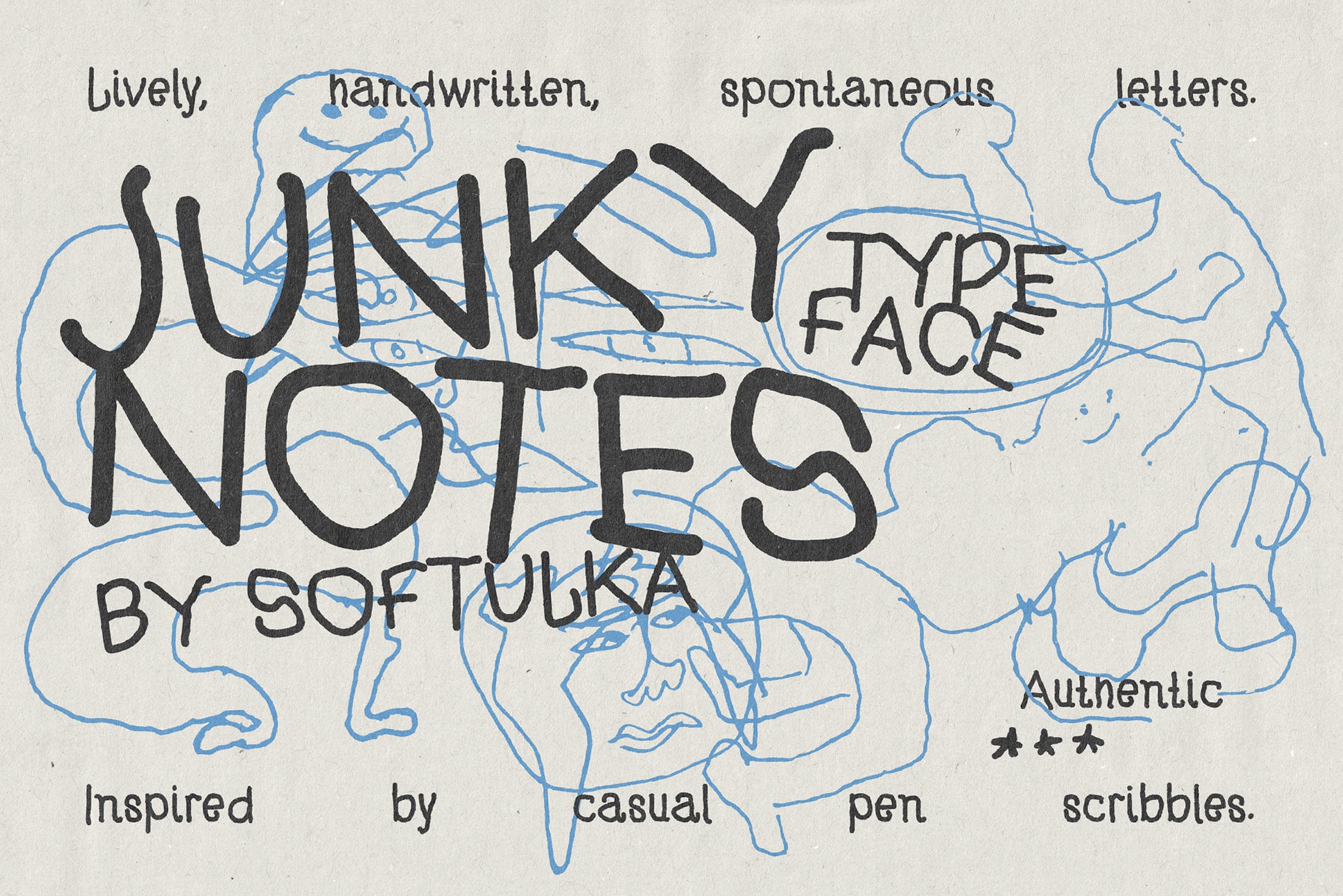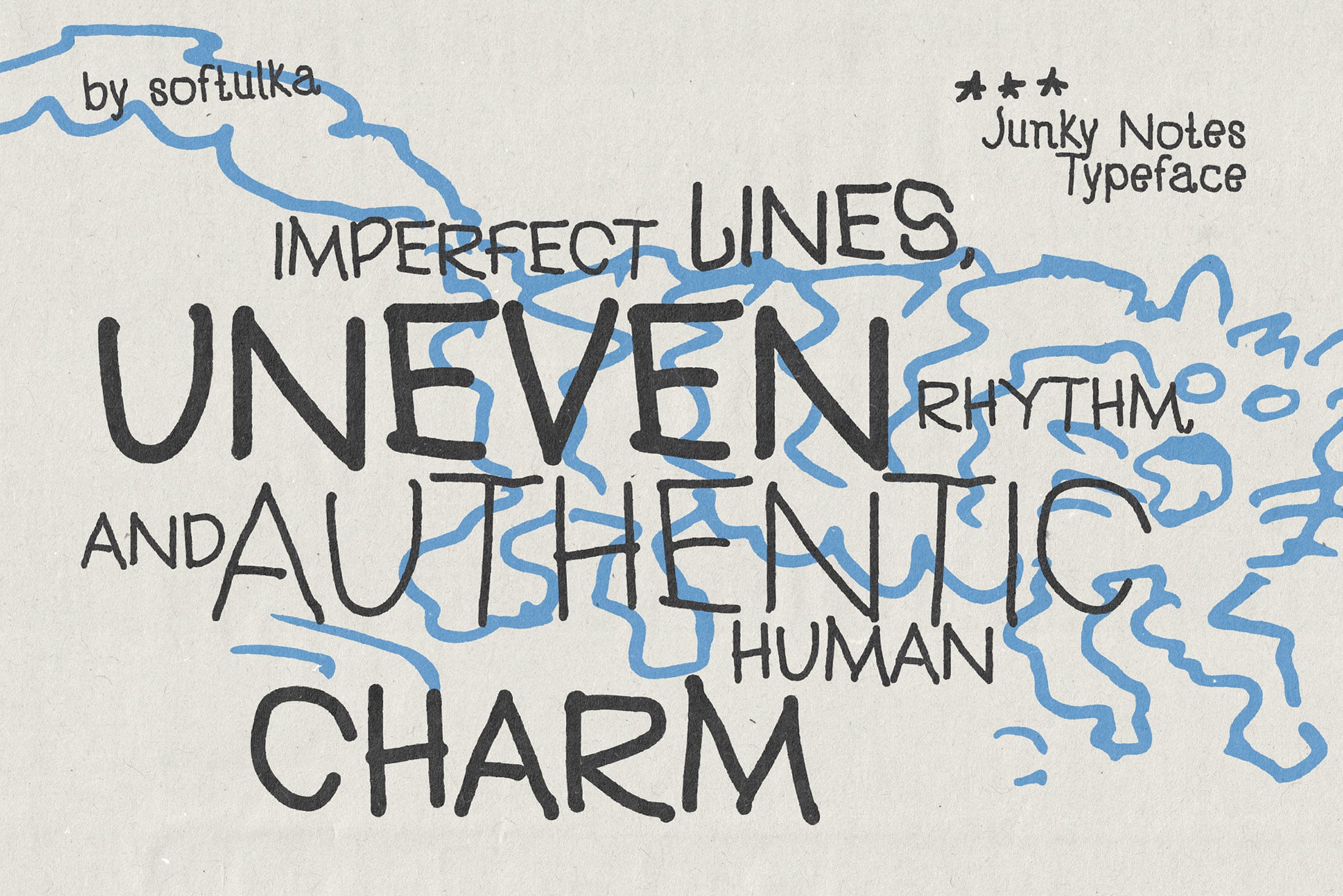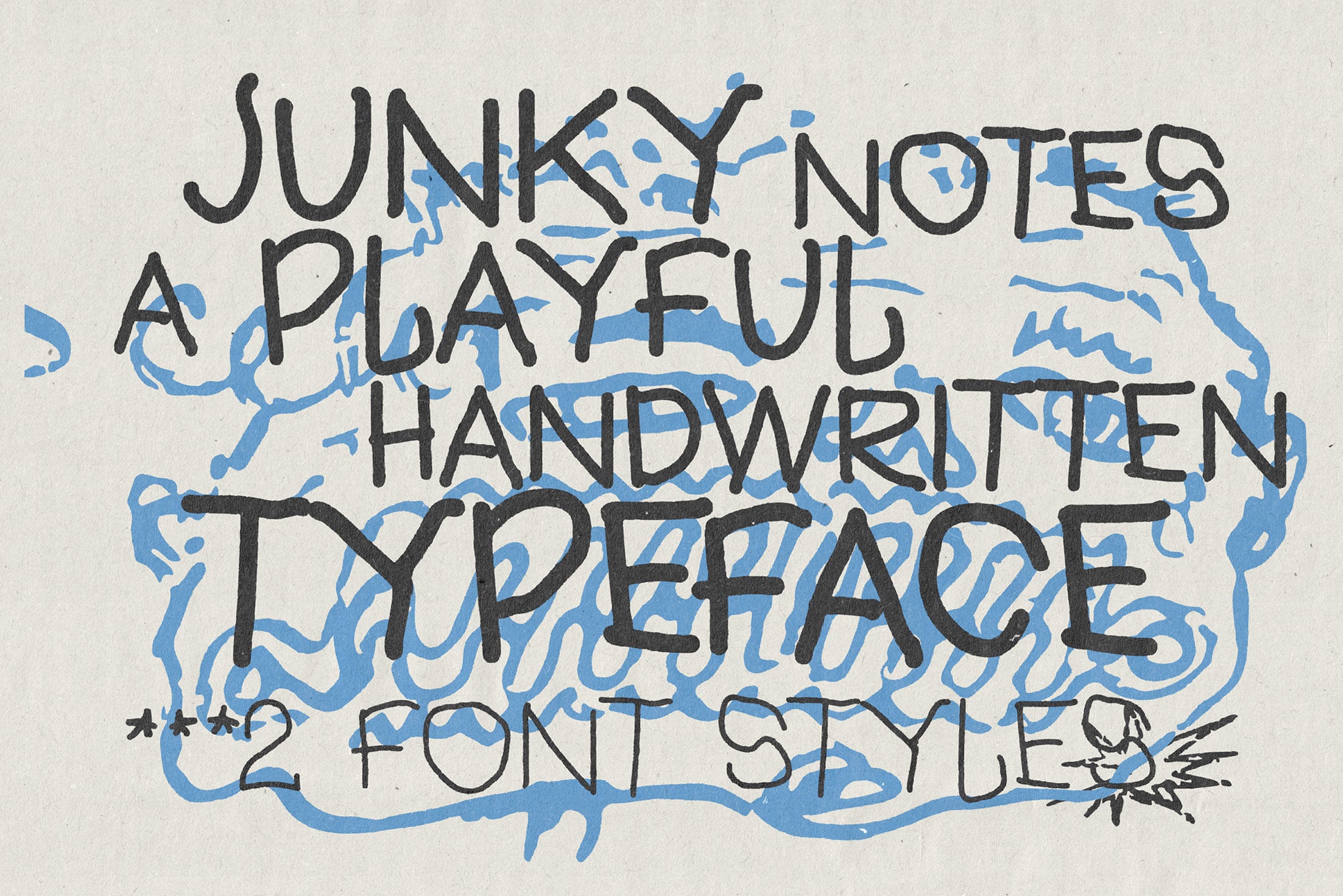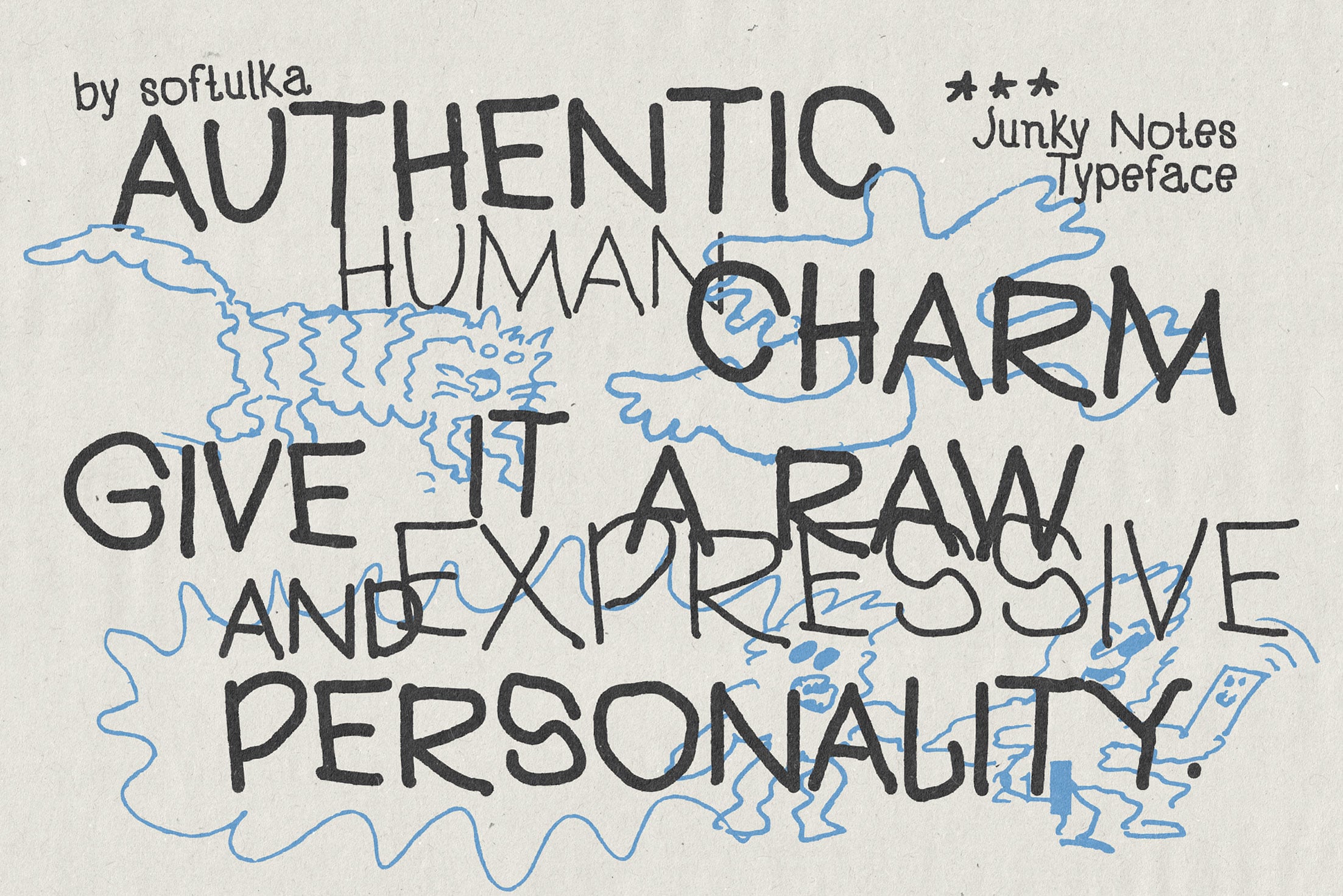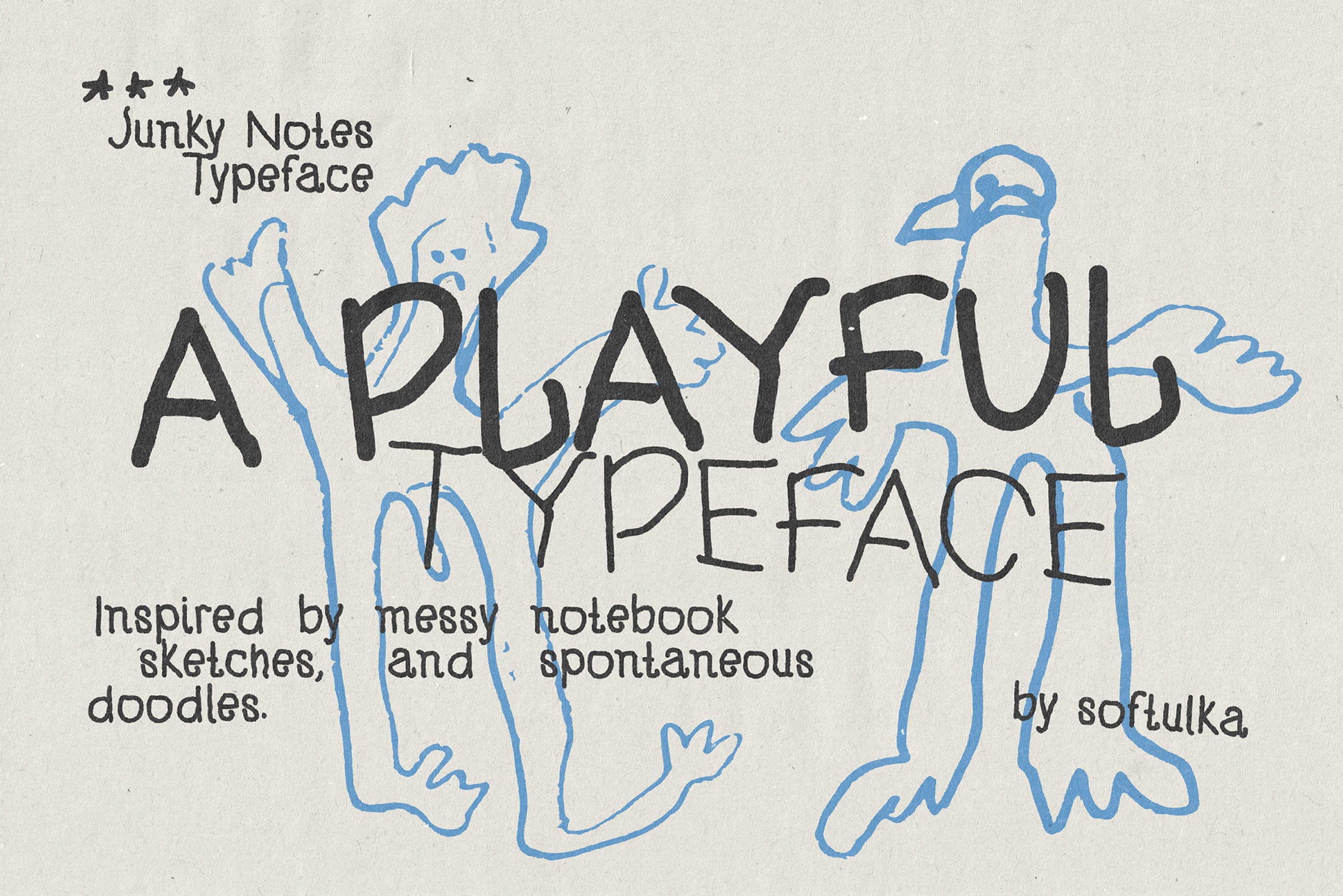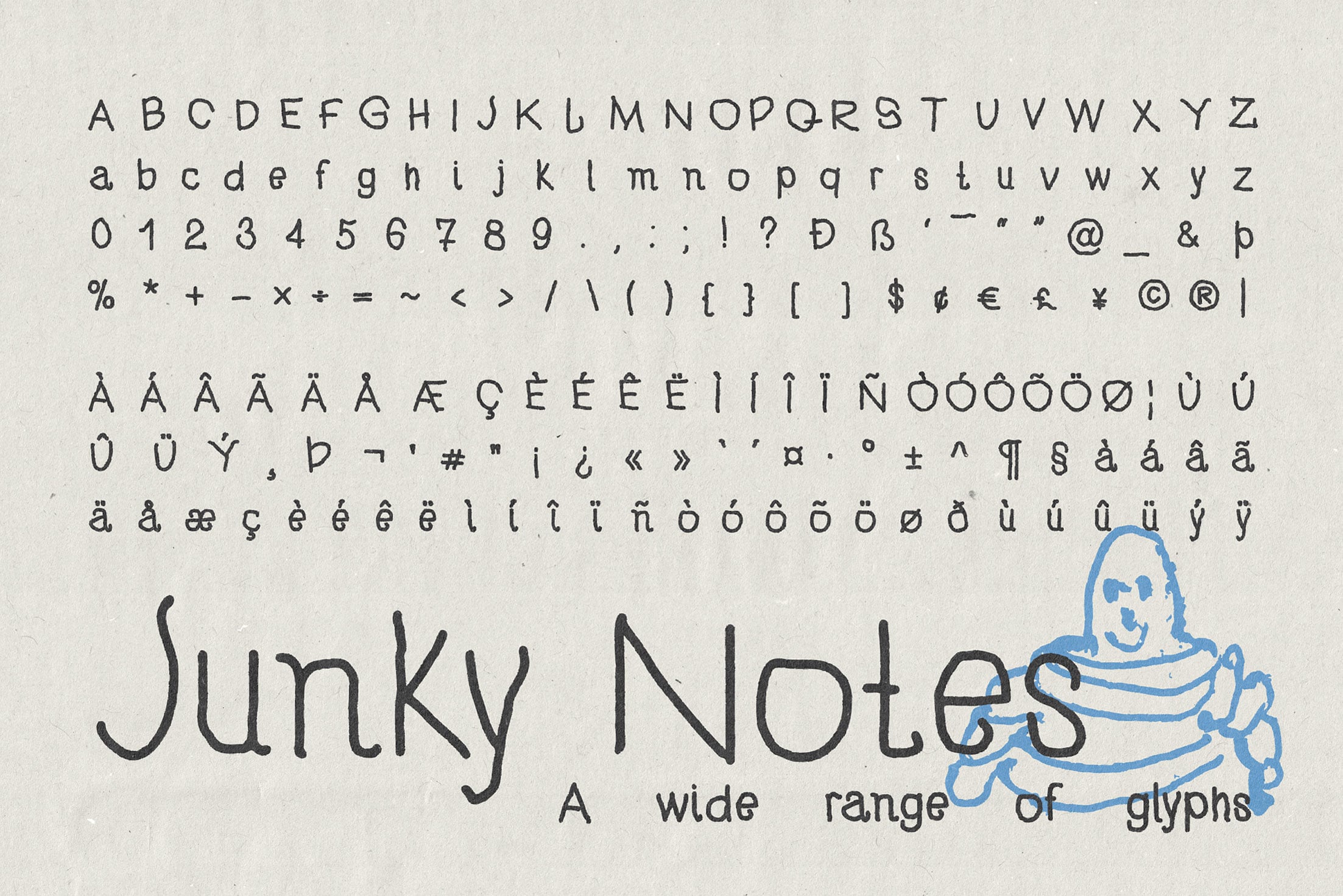
JunkyNotes-Bold Junky Notes Typeface
A playful handwritten typeface inspired by messy notebook sketches, spontaneous doodles, and casual pen scribbles. Imperfect lines, uneven rhythm, and authentic human charm give it a raw and expressive personality. Ideal for posters, branding, packaging, social media graphics, children’s projects, journals, and creative editorial layouts. ✦ What You'll Get: ✦ - 2 OTF file - 2 TTF file - 2 WOFF (WebFont) files - PDF with preview
Junky Notes Typeface
Created by Softulka